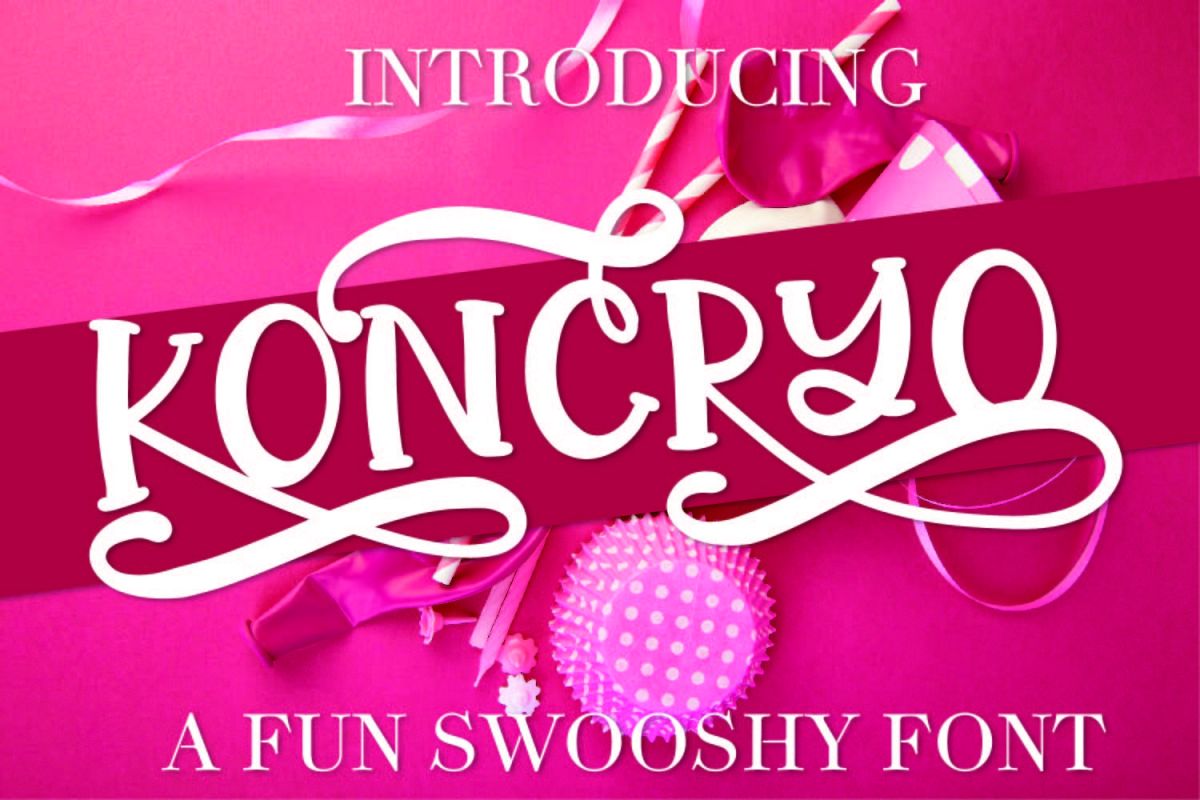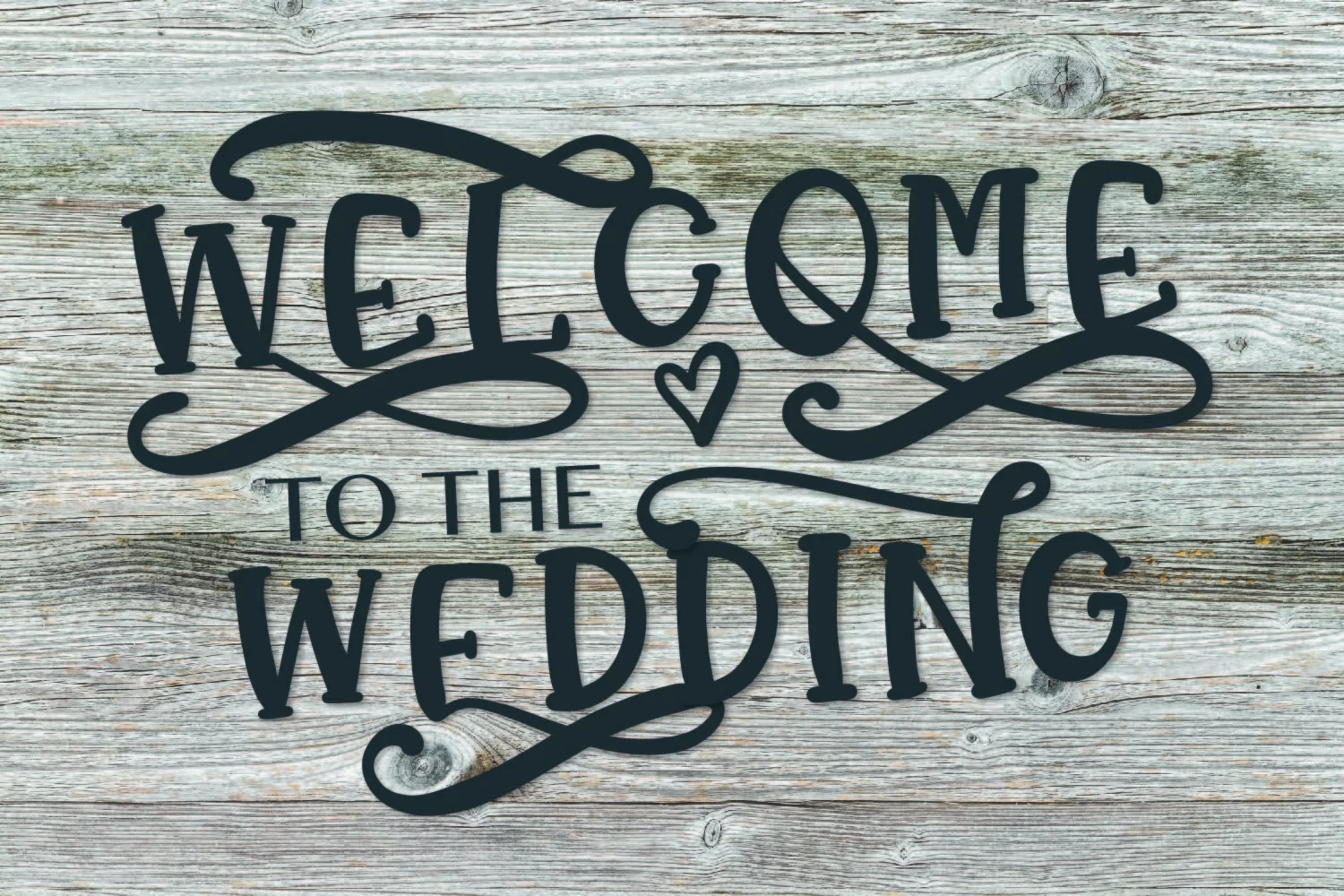
Koncryo - A Fun Swoosh Font With Alternatives
The capital letters of this font each have 2 alternatives. While the lower case letters act as a placeholder with just the basic alphabet.